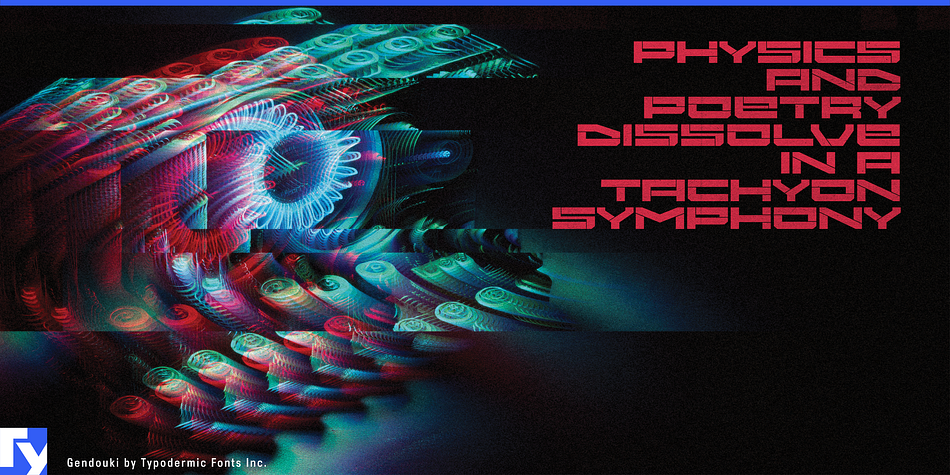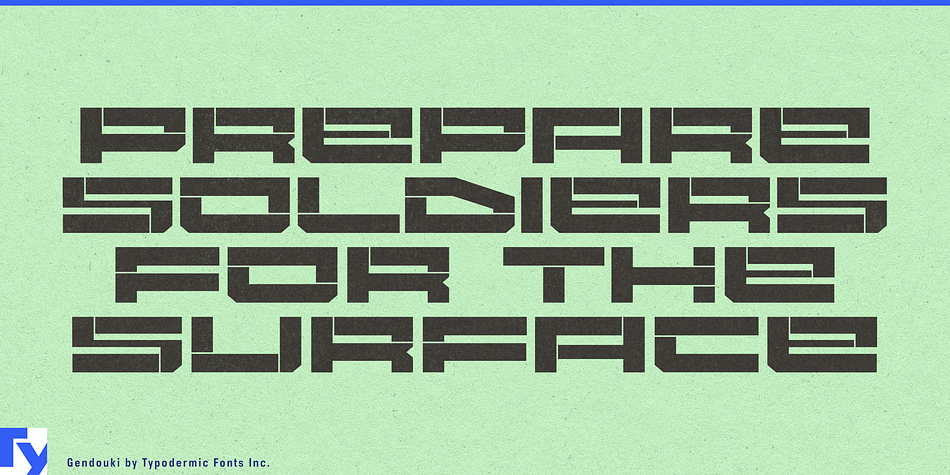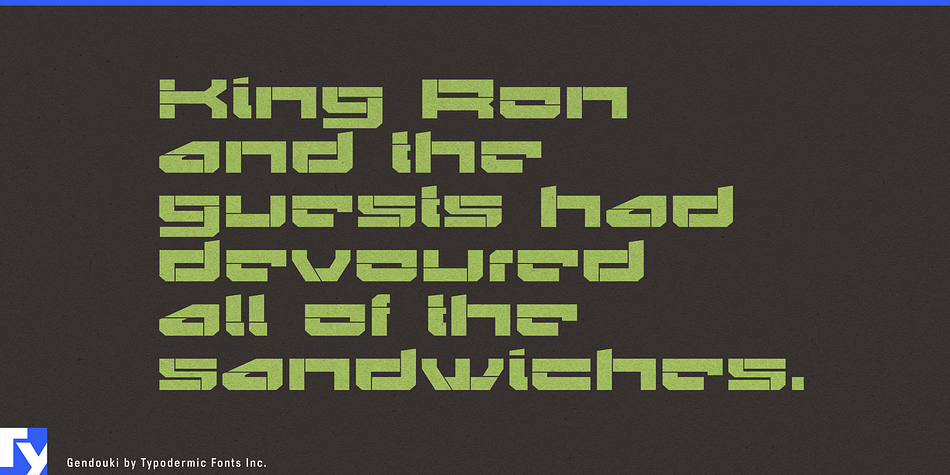
Gendouki is a display and stencil font published by Typodermic Fonts Inc.
Gendouki is a wide, futuristic typeface with filament stencil lines inspired by spaceship access panels. Try it as an oversize, low-contrast background elements. Gendouki is also useful as fat techno drop-caps, adding movement to paragraphs.